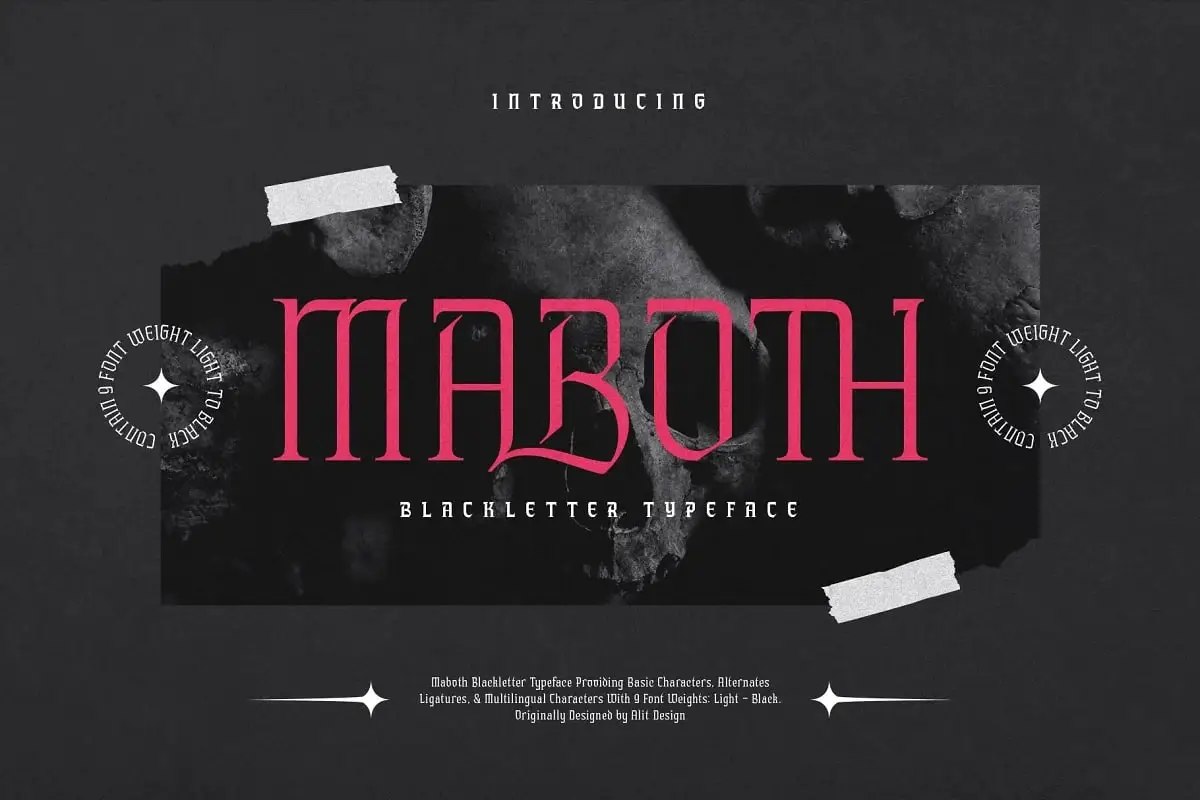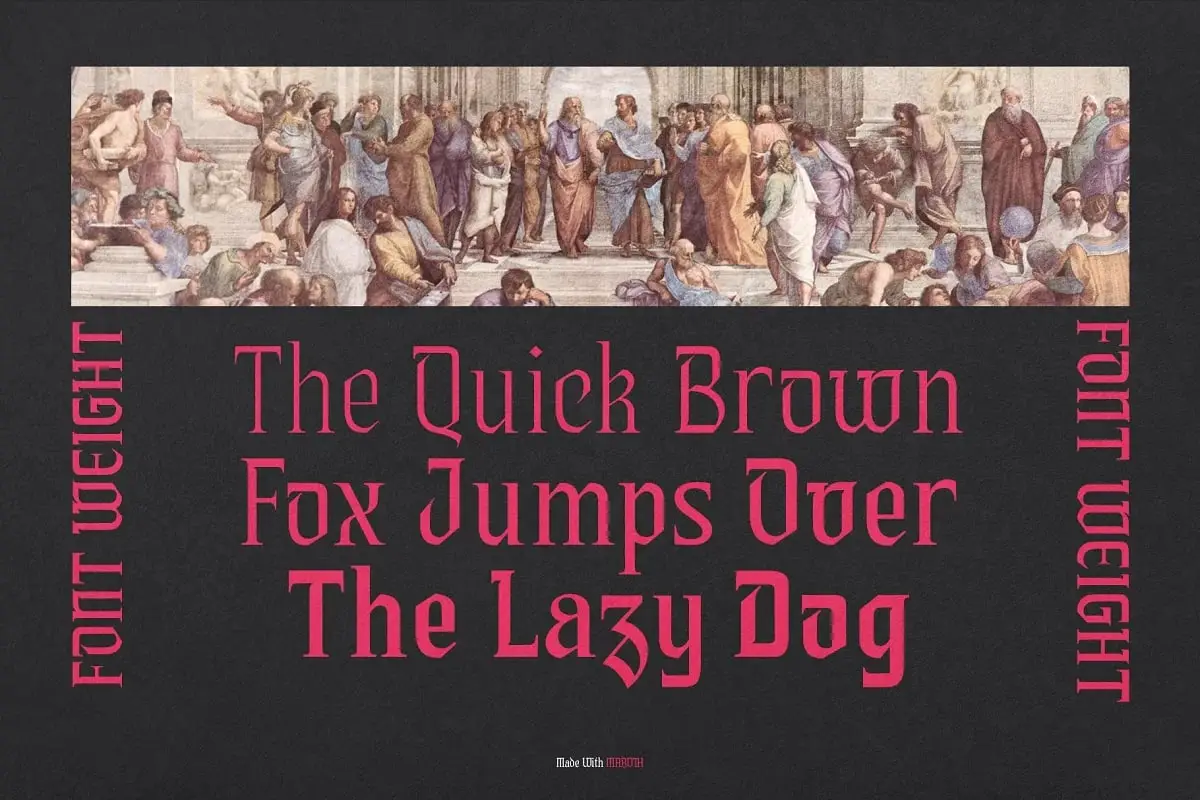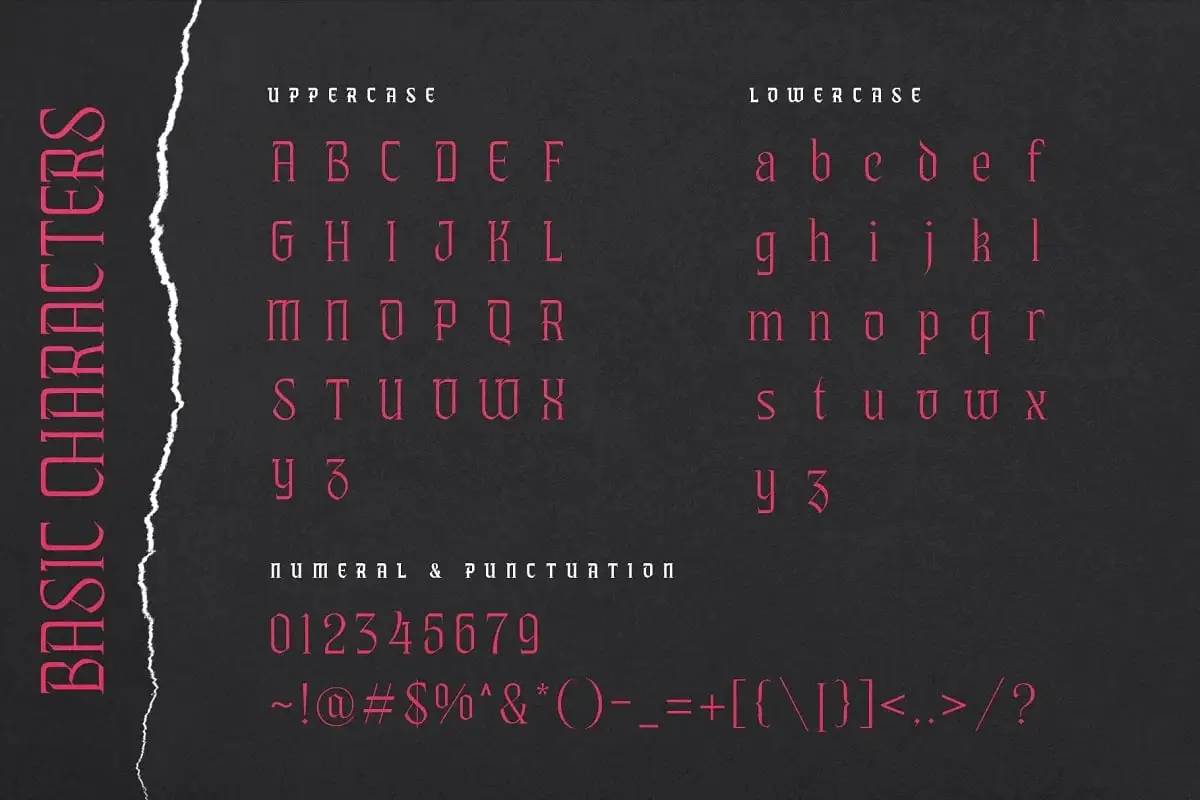
Maboth Typeface
The Maboth Typeface is a versatile and modern font designed to elevate your design projects. With its unique blend of elegance and readability, this typeface is perfect for a variety of applications.
• Multiple font weights for diverse design needs
• Stylish uppercase and lowercase letters
• Rich character set including special characters and numerals
This typeface is ideal for branding, logos, web design, print materials, and user interfaces. Its clean lines and modern aesthetic make it a great choice for both professional and creative projects.